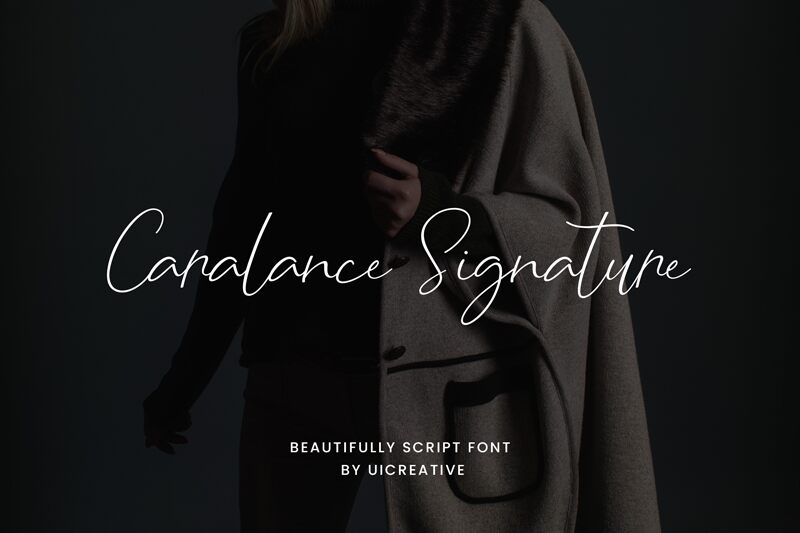
CaralanceSignature
Signature fonts have always been a popular tool for designers in all fields, but in recent years they have become a very prominent design trend.
Caralance signature font is a flowing and versatile typeface inspired by handwritten signature designs that has both an informal and a professional aesthetic. It’s a tool you can incorporate into branding projects and advertisements, packaging, book covers, logos, quotes, invitations, cards and so on. You can use it for posters, as a body text or a display headline, web designs, social media graphics, labels, headers, etc.